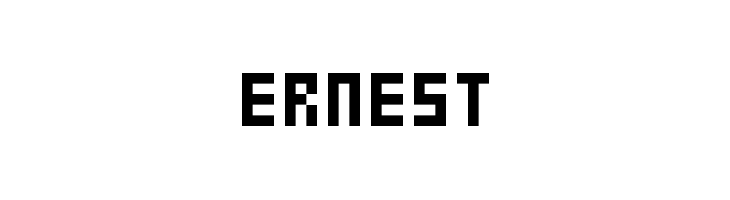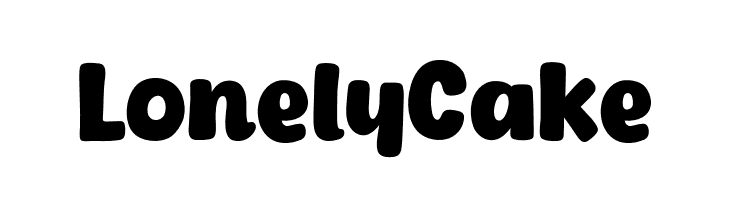
A display font using vintage tattoo flash illustrations as glyphs.
A playful, hand-drawn font with whimsical, decorative elements.
A bold, geometric font with a vintage poster style.
A modern serif font with high contrast and elegant, thin strokes.
A playful, bold handwritten font with smooth curves and a slightly condensed style.
A bold, distressed font with a vintage and rugged appearance.
A modern, italic sans-serif font with medium weight and low contrast.
A sophisticated, extra-light, narrow font with high contrast and modern elegance.
A bold, narrow font with a modern and impactful design.
A bold, graffiti-style font with a dripping effect, perfect for urban-themed designs.
A bold, geometric font with minimal contrast and strong presence.
A bold, geometric font with a futuristic and industrial style.
A futuristic, geometric font with bold, angular letterforms.
A bold, playful font with rounded edges and a slightly condensed style.
A clean, modern monospaced typeface with uniform character width and geometric structure.
A bold, italicized font with a futuristic and angular design.
A bold, playful font with rounded, bubbly characters.
A bold, modern font with strong, uniform strokes and excellent readability.
A vintage, typewriter-style font with a textured, hand-crafted appearance.
A playful, hand-drawn font with a whimsical and casual style.
A playful, casual handwritten font with smooth, flowing lines.
A distressed, vintage-style font with a rough, textured appearance.
A bold, playful script font with flowing letterforms and decorative flair.